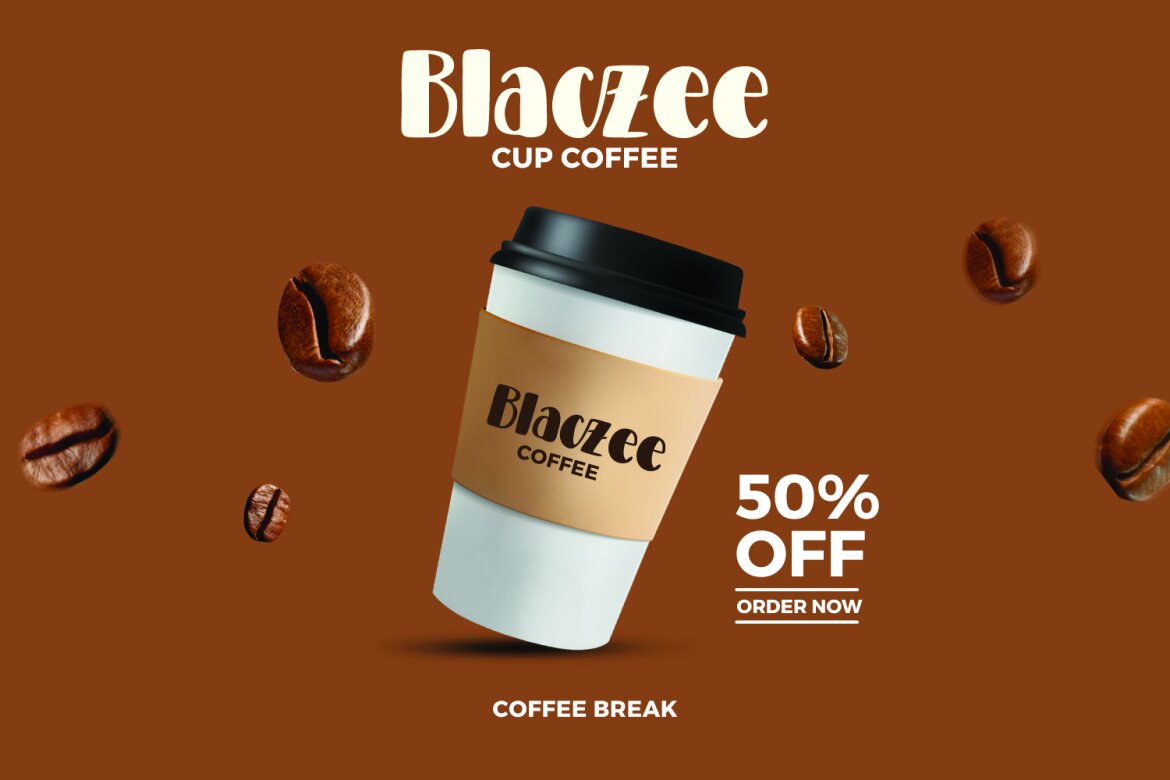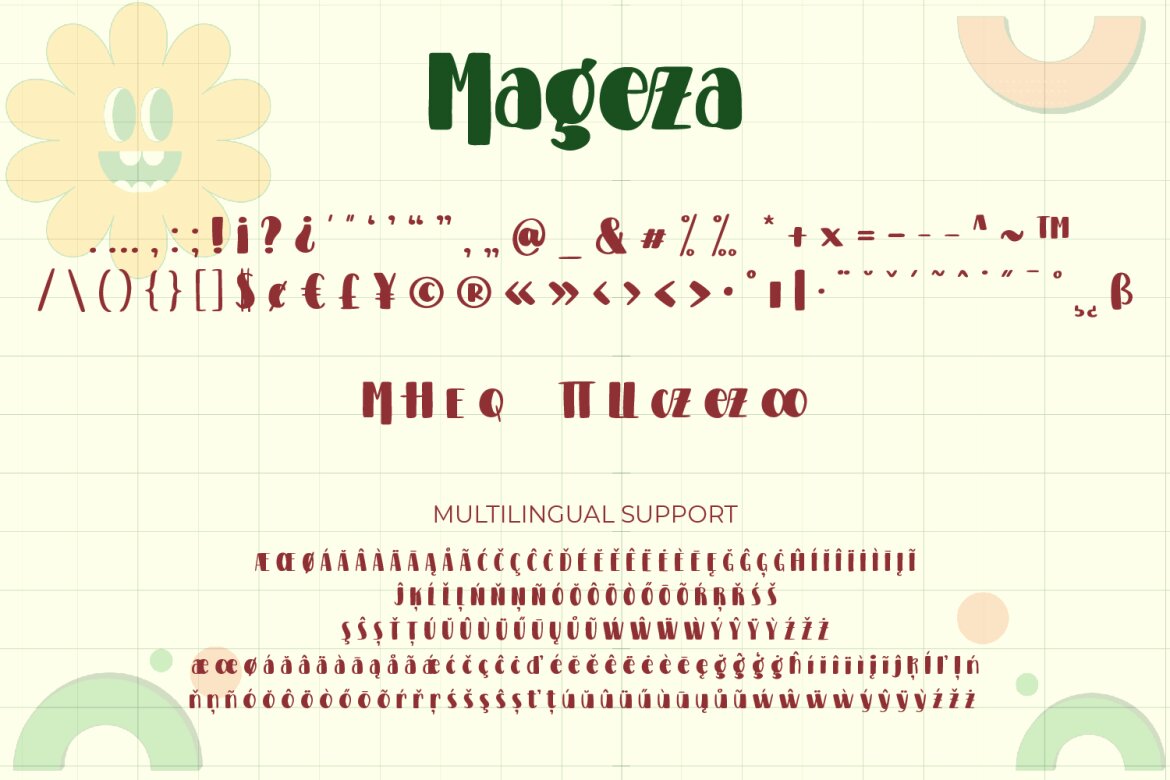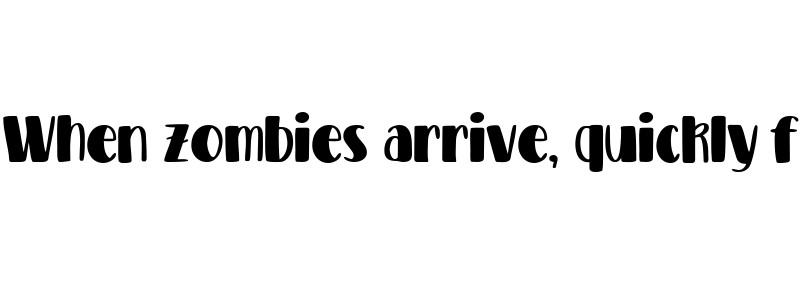
Mageza - FREE Playful Bold Font
Mageza
Mageza - Unique Playful Bold with a calligraphy style, So beautiful on invitation like greeting cards, branding materials, business cards, quotes, posters, and more!
• Tons of glyphs
• Alternates and Ligatures
• Fonts include Multilingual Support